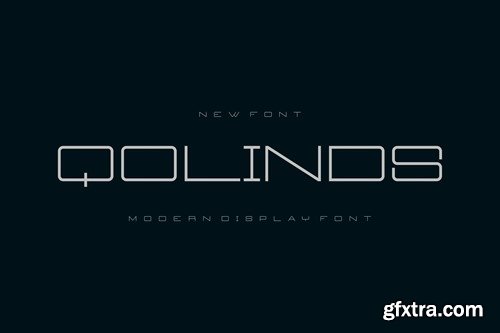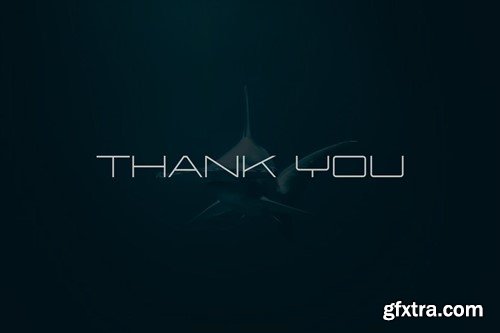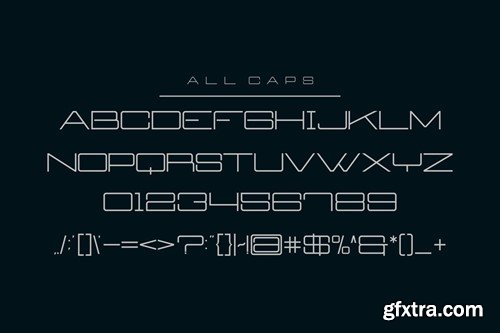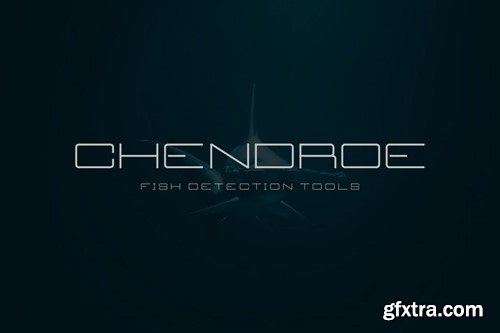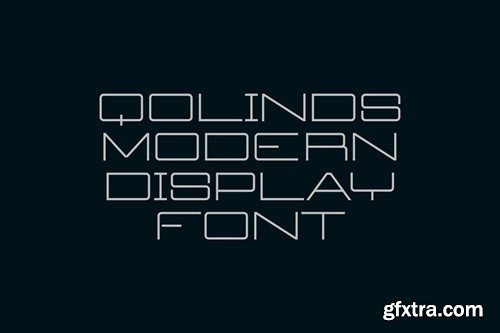
Qolinds Font S2BX22F
Qolinds Font
Introducing our new product Qolinds Font - Modern Font is a bold and authentic display font. The font is suitable for any branding project like logo, esport, and many more. outstanding in a wide range of contexts. availlable